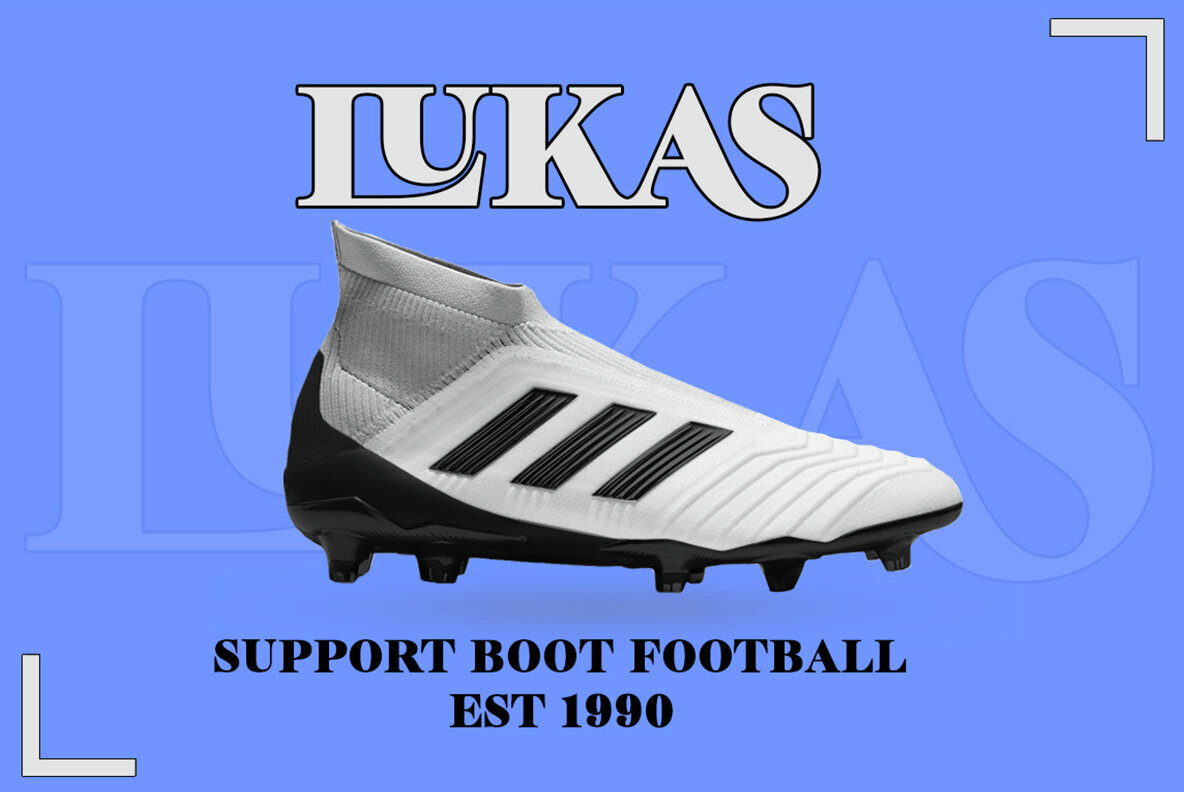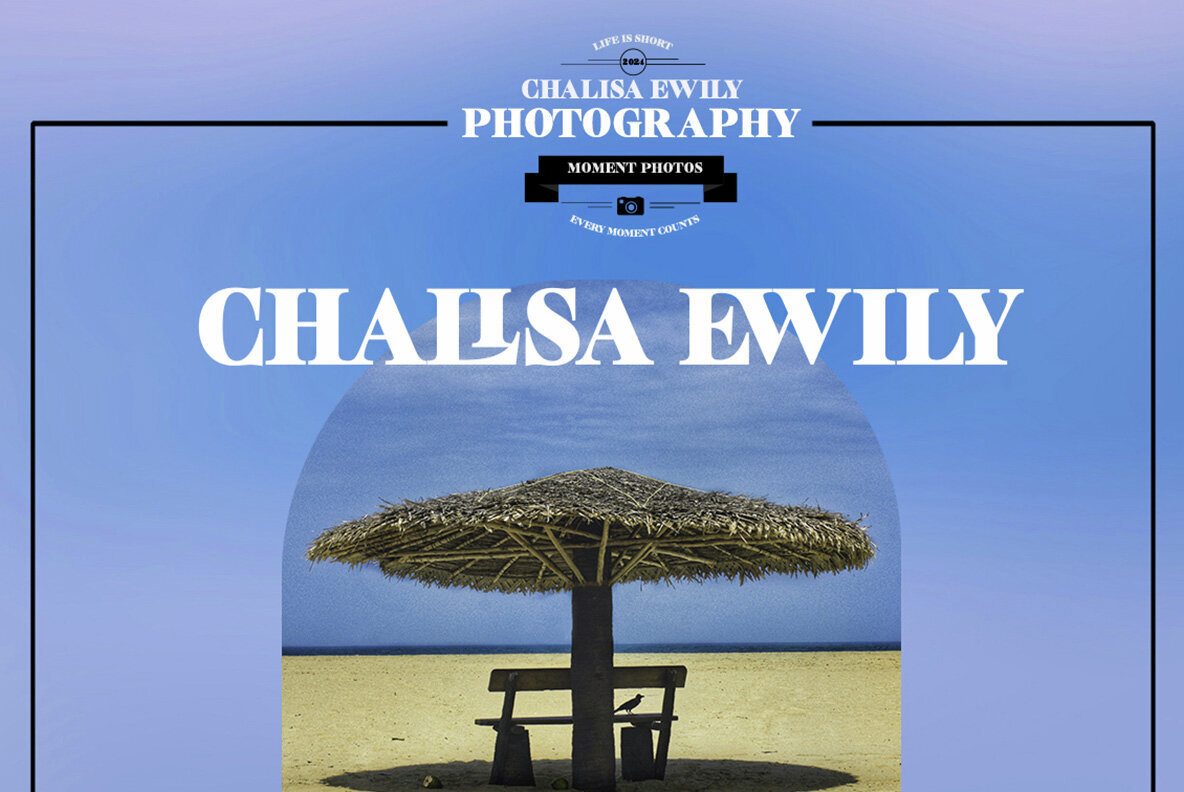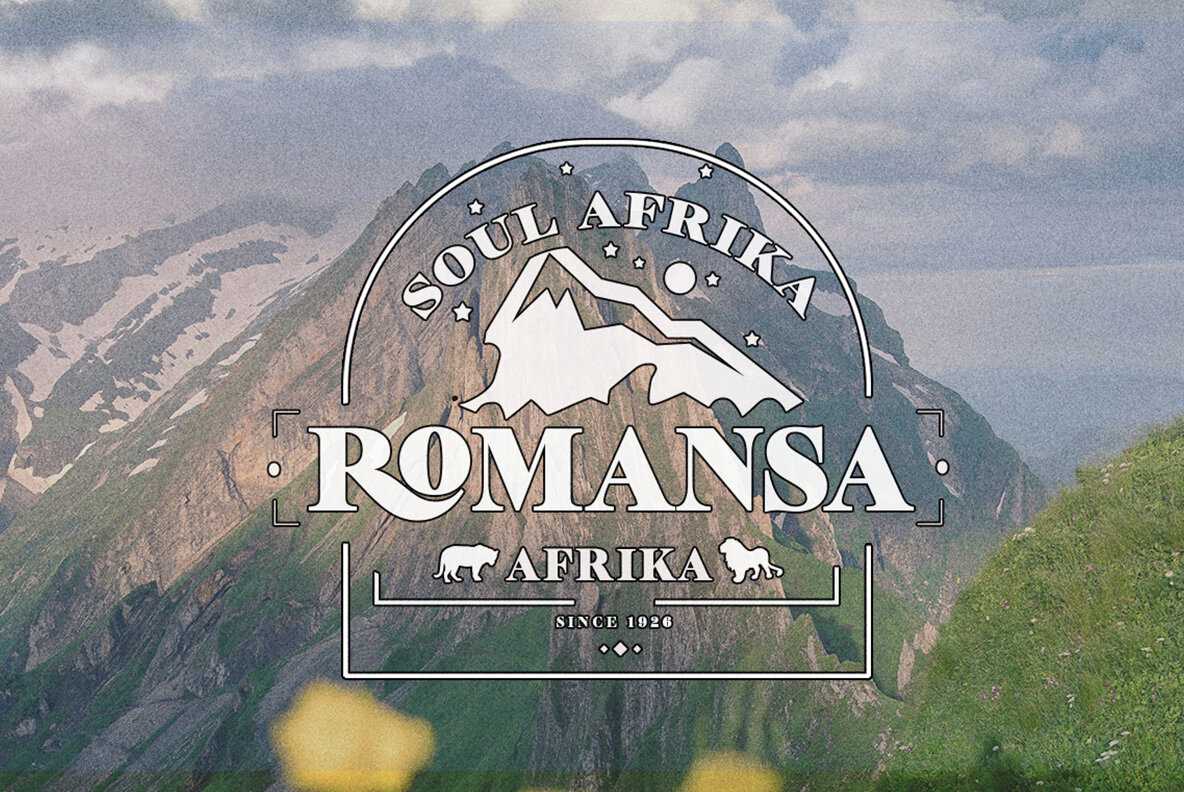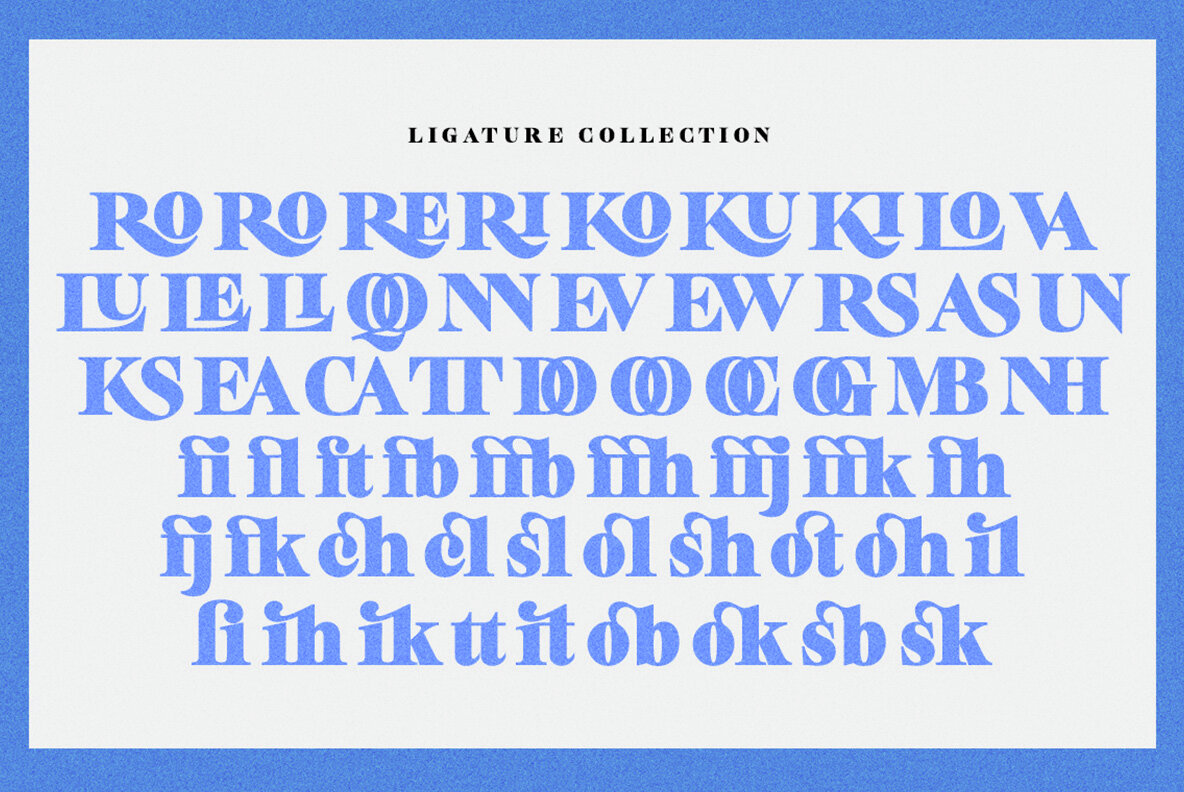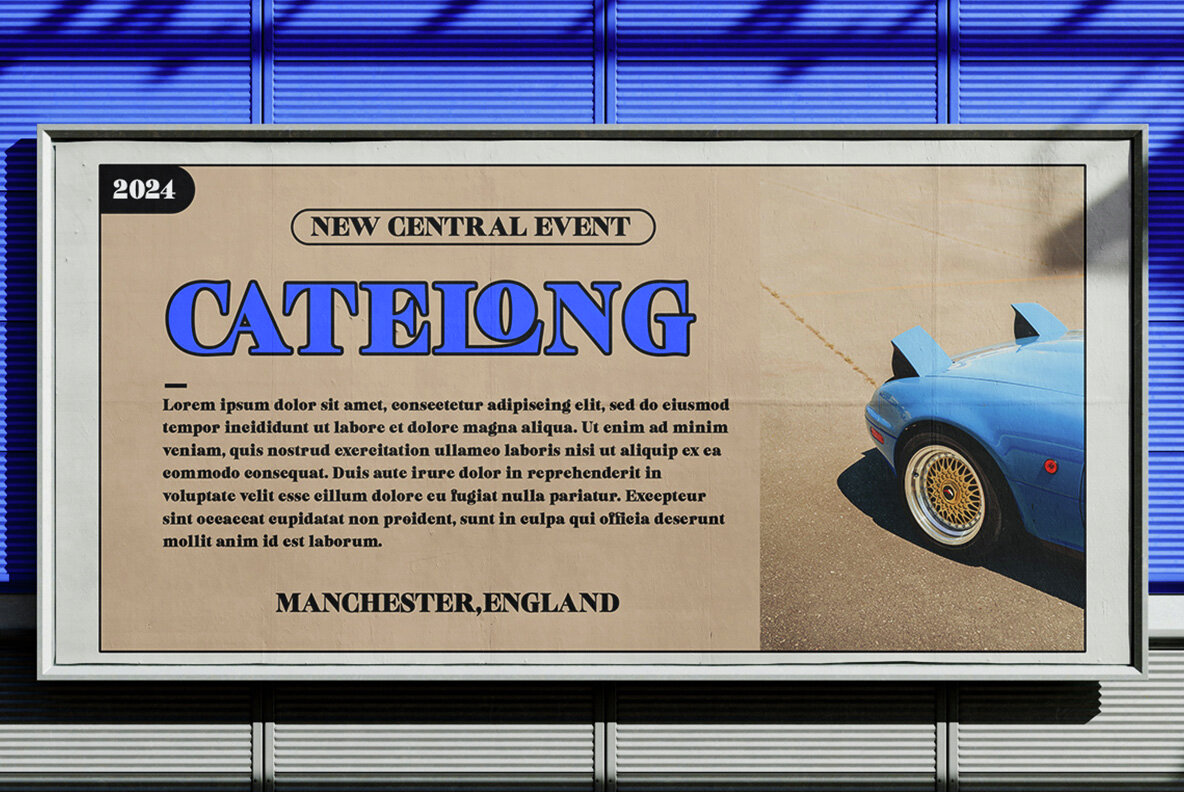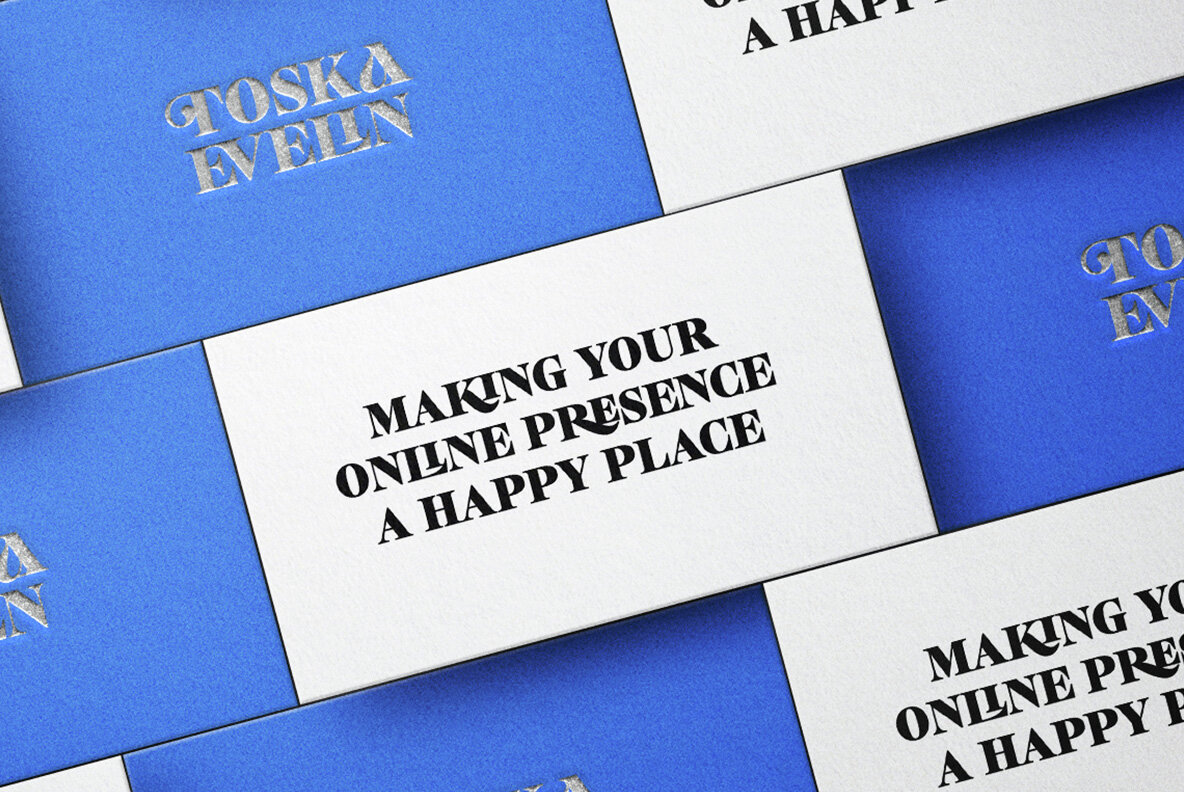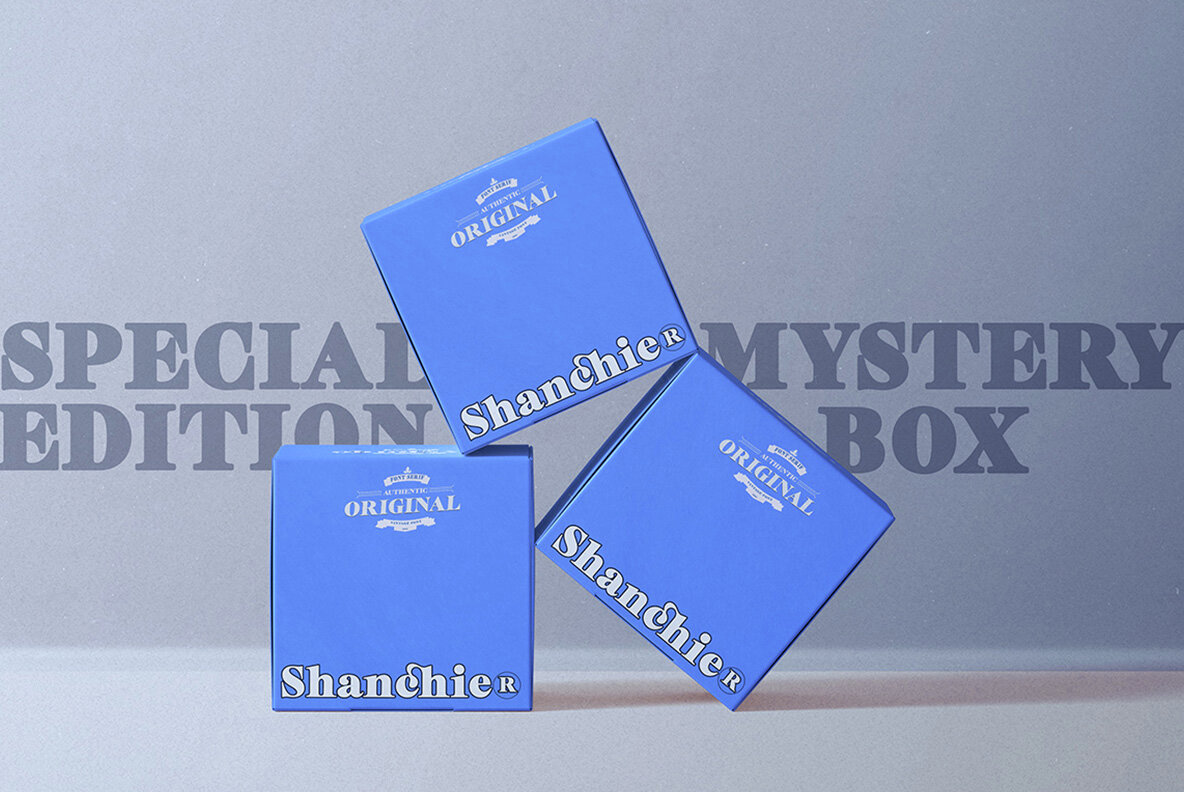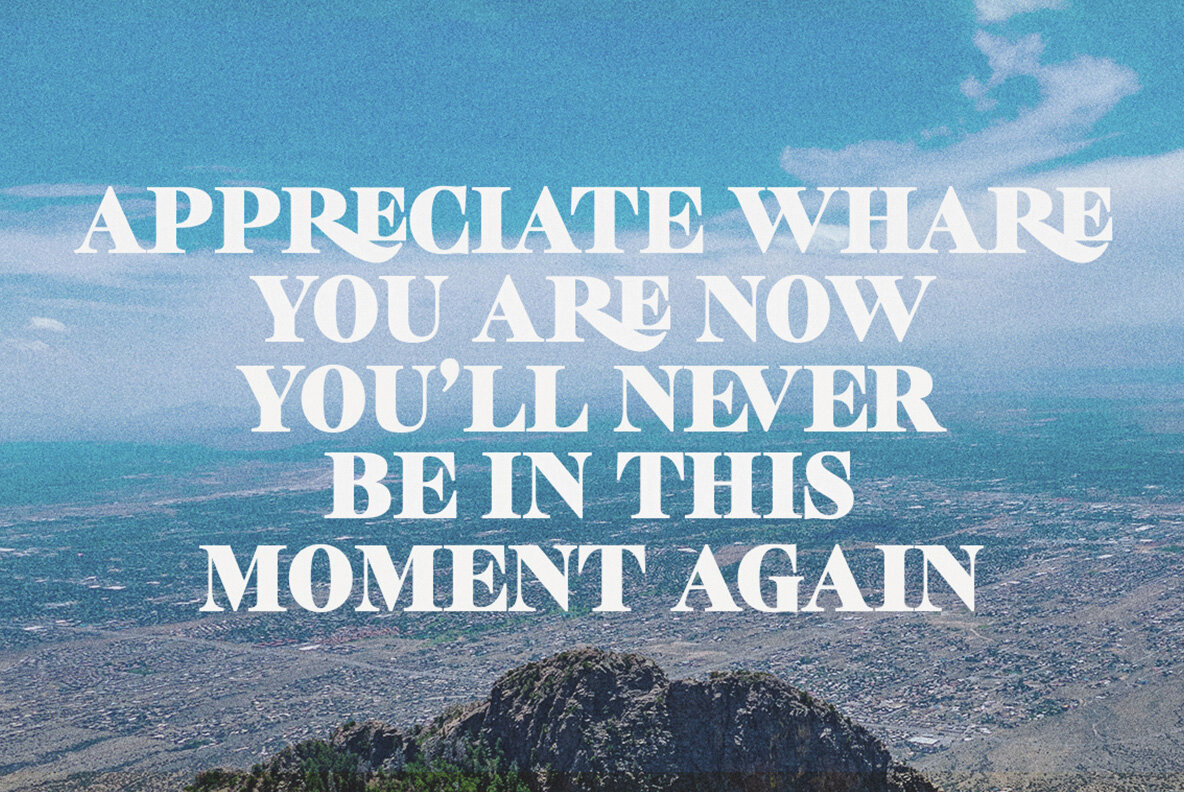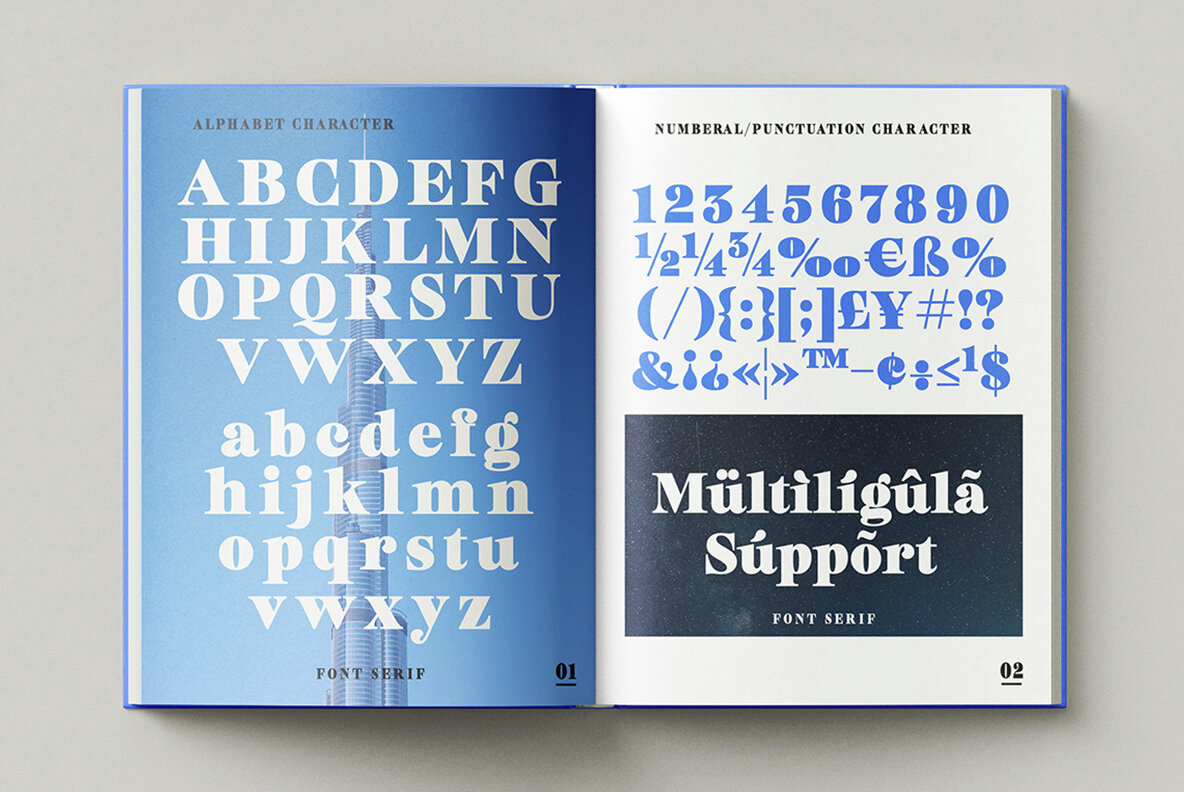
Avoliun Font
Avoliun Extra Black
Avoliun is a modern and elegant font characterized by clean lines and a sleek design. Its readable yet attractive characters make it versatile for various design needs, including logos, posters, and professional branding. The font's stylish appearance adds a sophisticated touch to any project, helping your designs stand out with clarity and precision.